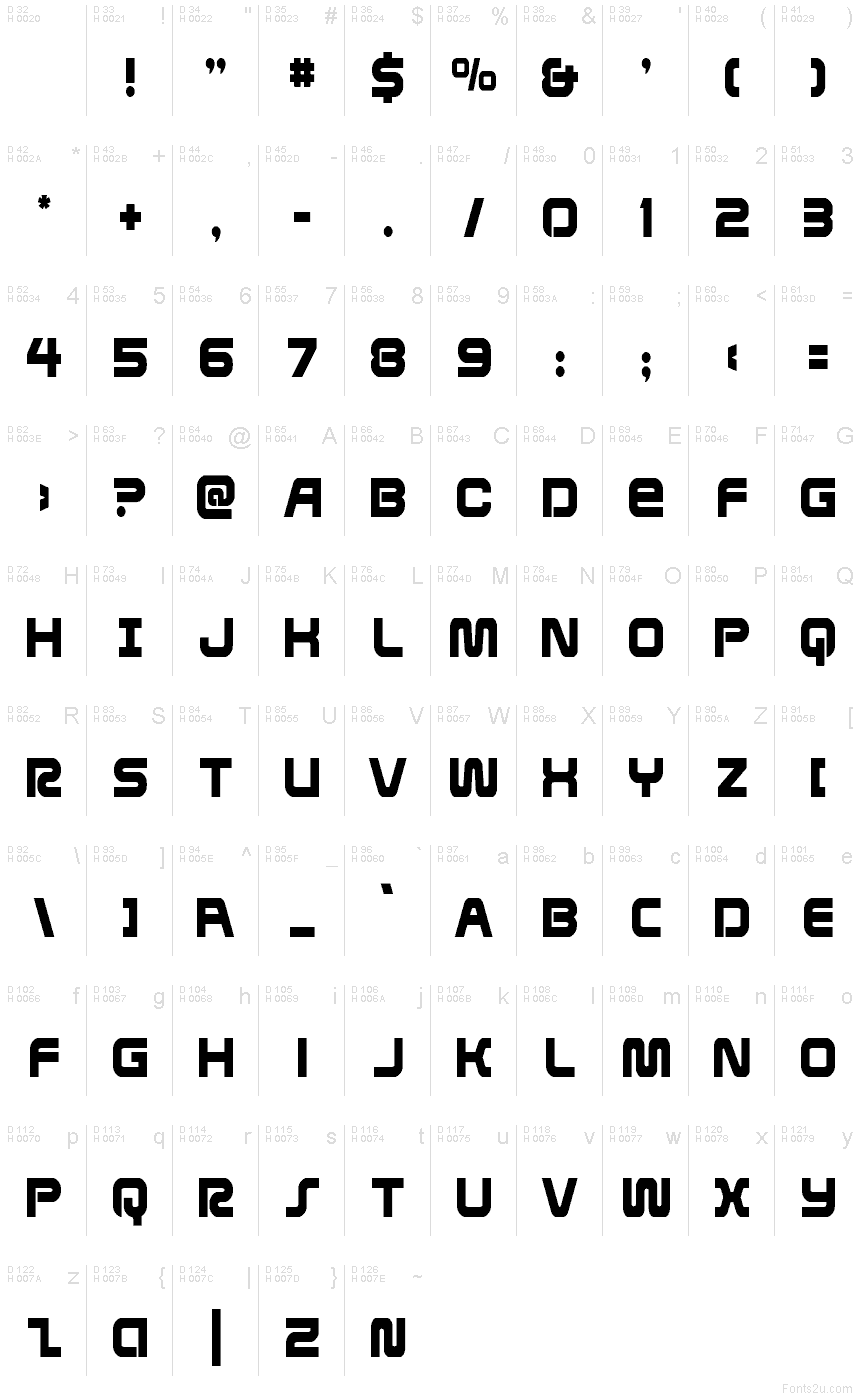
Rocket Command Condensed
Rocket Command font by Iconian Fonts is an exceptional bold display font built with futuristic aesthetics in mind. All-caps letters, straight lines, and sudden curves combine to form a geometric and modern typeface with a techy appearance. However, unlike most geometric fonts, Rocket Command’s letters are condensed, a characteristic that furthered its unique identity.
Rocket Command is a free techno display font for posters, clothes design, basketball team uniforms, video games branding/packaging, book covers for science-fiction novels or dystopian books/short stories. Use it in magazines’ headlines when the space dedicated to the text is minimal. Future-themed product branding does well with this typeface addition as well!